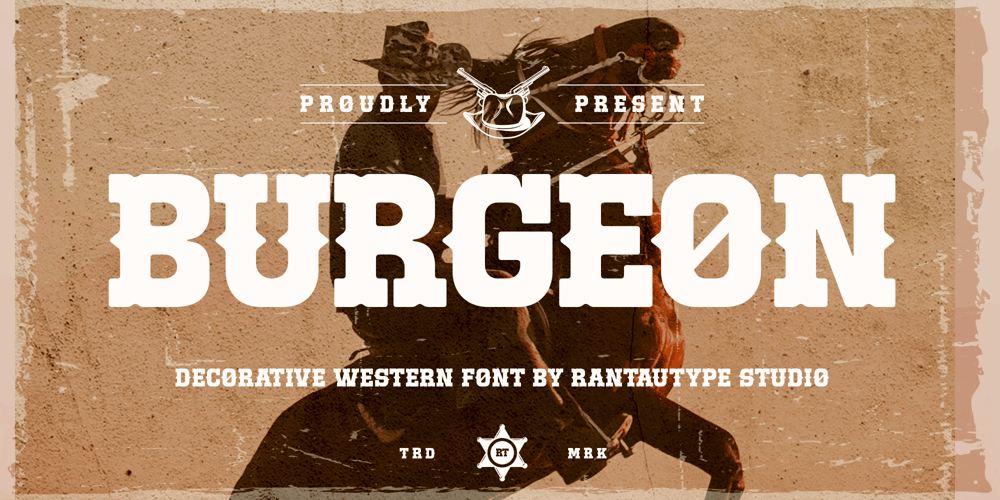
Burgeon
Burgeon font
Burgeon Font Family was designed by Yudi Pratama Chandra and published by RantauType. Burgeon contains 2 styles and family package options. Hi Ladies and Gentleman !Proudly present Burgeon Decorative Western Display font by rantautype.Burgeon is beautiful display typeface inspired by midcentury southwestern type we keep this font look retro but modern. Burgeon display come with more alternate and ligature to make it more option design. This font can be use for retro and modern design. Burgeon display support dozens of languages which use the Latin and Greek alphabets.Burgeon separate in reguler and italic, is a beautiful choice for any creative endeavor, creating fun, modern, chic, lifestyle design such as logos, title, cover, branding, display and magazine, and more. Now you have more choice when using Burgeon to make amazing design.Features: Standar character A-Z and a-z Numberial and Functional Alternate and Ligature Works on PC & Mac Simple installations Accessible in Adobe Illustrator, Adobe Photoshop, Adobe InDesign, even work on Microsoft Word. PUA Encoded Characters – Fully accessible without additional design software. Fonts include Multilingual Support for: Afrikaans, Albanian, Asu, Basque, Bemba, Bena, Breton, Chiga, Cornish, Dutch, English, Estonian, Filipino, Finnish, Friulian, Galician, Gusii, Indonesian, Irish, Italian, Kabuverdianu, Kalenjin, Kinyarwanda, Luo, Luxembourgish, Luyia, Machame, Makhuwa-Meetto, Makonde, Malagasy, Manx, Morisyen, North, Ndebele, Nyankole, Oromo, Portuguese, Quechua, Romansh, Rombo, Rundi, Rwa, Samburu, Sango, Sangu, Scottish, Gaelic, Sena, Shambala, Shona, Soga, Somali, Spanish, Swahili, Swedish, Swiss, German.Thank you for your purchase!Hope you enjoy with our font!